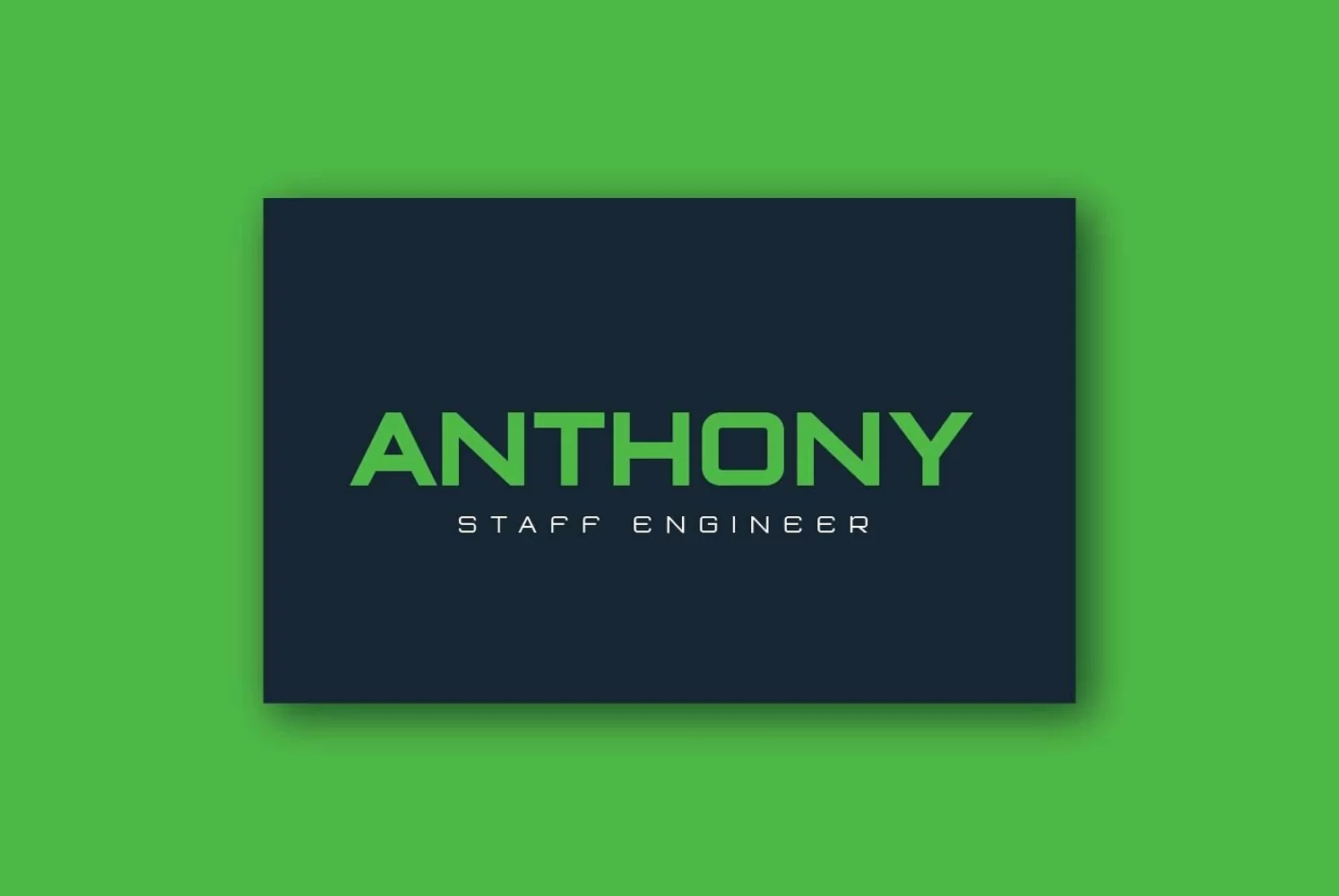
Plutonian - Modern Space Font
Inspiring from space aircraft theme, Plutonian was made with simple geometric shapes and come with 3 different weights. With this typeface, you can use it for logo, title, magazine cover, headline, powerpoint templates design, signs, and many more.